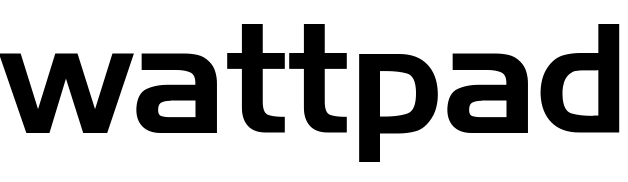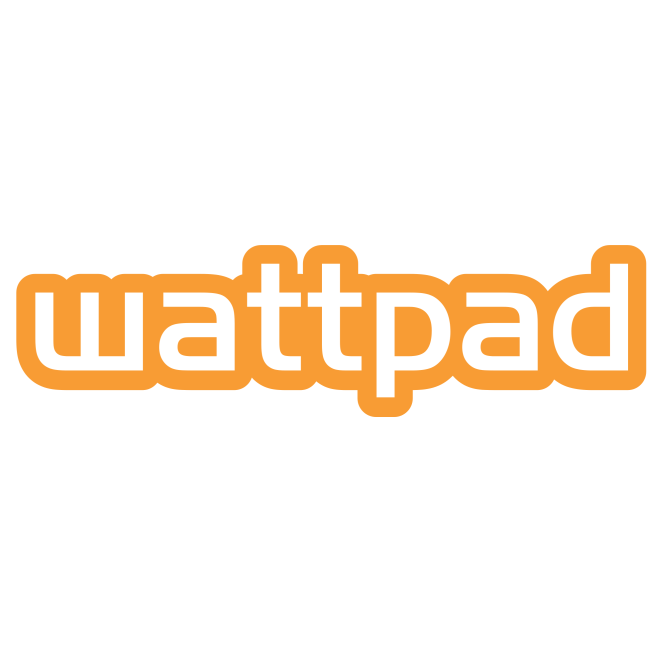
Wattpad Logo Font
FantasyWattpad is a social storytelling platform where users can publish their original stories and connect with a community of readers. It has over 90 million users and hosts a variety of genres, including romance, fantasy, and fan fiction.
The Wattpad logo features Handel Gothic, a geometric sans serif font created by Donald J. Handel in the mid-1960s. Though the letter "w" in the logo differs from the font, it can be replicated by horizontally and vertically flipping the letter "m" in Handel Gothic.